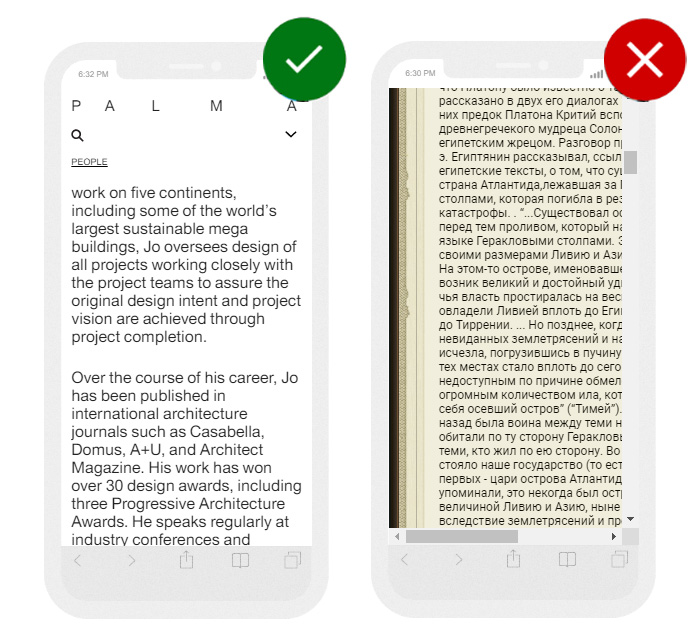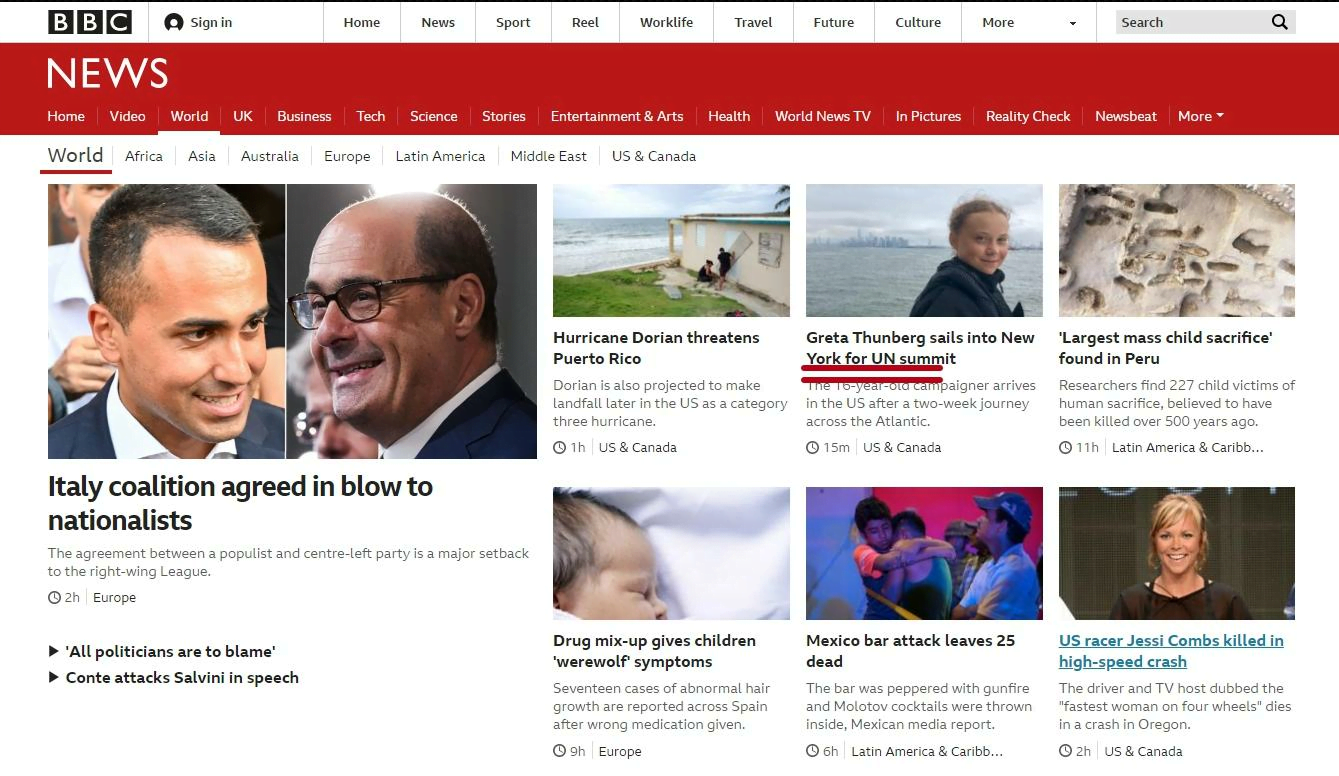
Which fonts, buttons and colors to use in the mobile version of a website
For mobile users' convenience, it's necessary to make links and buttons large enough on the website. It is also important to choose the right font size and consider the line spacing for the mobile website.
What is a mobile typography
Mobile typography is a branch of the art of typography, dedicated to the set of rules for the most convenient perception of printed information on portable devices.
In the example below, the mobile version of the website is displayed on the left with easy to read fonts, and all information is placed within the screen width.
The text on the right side is too small; an unsuccessful font for promo offer is used. There is a horizontal scrollbar since the website is not adapted for mobile devices:
Mobile typography
The website content on mobile devices should be displayed in such a way as to ensure easy loading, clarity, and readability. At the same time, it should have easy-to-use features so that the user can carry out all the necessary actions on a smartphone just like he'd do it on his PC.
In the example on the left, all conversion buttons are located in a visible place; they are quite large. The website on the right uses too small fonts and non-responsive design:
Layout for mobile devices
The basic principle of mobile web design is to provide the user with the necessary functionality without overloading him with unnecessary information and calls to action. The mobile version website content should be easy to read through so that you can get back to some point and read it in detail.
The example on the left uses a readable font for the main text, the length of the line, and the division into paragraphs facilitate easy perception of the material. The text on the right is not divided into paragraphs; the font is too small. It's very difficult to read such content using a mobile device:
Website adaptation for mobile devices
You need to pay attention to the following elements while developing a mobile version of a website.
Font size
Recommendations differ depending on the operating system used. However, in any case, the font size should be easy to read:
Font size for mobile devices
Experts recommend to use the following font ranges:
• for user input and body text: at least 16 px;
• for less important text: 14 px;
• line spacing: 24 px.
Since everyone has different devices, eyesight, and viewing conditions, it's worth considering that you still won't be able to make a single ideal option. Therefore, we need a sweet spot in the middle which can be determined by testing. Ask colleagues or users to go to the website on their device and give feedback.
Also, depending on the topic of the website, it is worthwhile to understand the conditions under which people read published articles, for example, in public transport or while heading to work on foot. You can see this in the analytics (viewing time). If the main traffic comes in the mornings and evenings, it's clear that people visit the website on their way to work and back.
Find more detailed instructions from the information posted on Material Design.
Empty space
There must be spaces between lines, paragraphs, letters, and words to easily read the text:
Line spacing for mobile users
Lack of decorative elements
Fonts must be selected without unnecessary decorative elements that can make reading difficult on a small screen. You should also remember that certain operating systems use different font families. For example, Apple traditionally uses San Francisco fonts:
Font family for mobile devices
Line length
It is preferable to use short lines, 30-40 characters would be ideal:
Optimal line length for mobile visitors
Color combinations
The mobile version of a website must have correctly selected color combinations that contribute to the perception of information. Monochrome color combinations are used most often:
Color scheme for mobile devices
You can check the contrast of color combinations on the website using the checkmycolours online service:
Color combinations testing checkmycolours
This service gives a detailed report on errors that make the labels illegible due to incorrectly selected background colors and fonts:
Site color scheme test online
You can instantly change the color combinations and check the result in the service.
Headings
For mobile devices, the same-level headings are best suited to divide information into semantic blocks without a complex hierarchy. This structure is appropriate for quick reading and searching for the necessary information:
Headings in the text for mobile devices
How to see what devices are used to visiting your website
Before you understand how the content on the site should look like on mobile devices, you should analyze from which devices users access it. You can see this in Google Analytics, "Audience" - "Mobile" - "Devices":